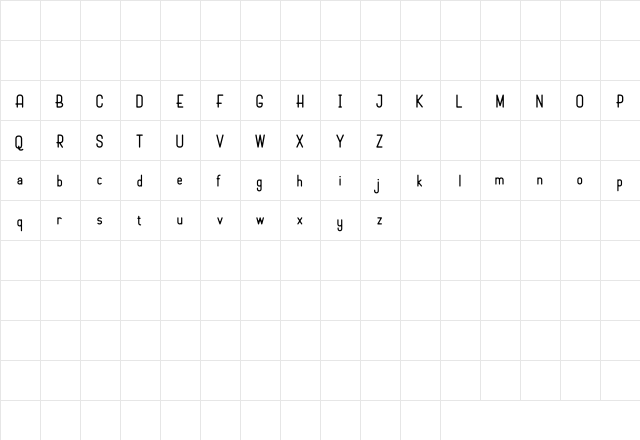
Marko Demo Regular
| Designer | Dicky Safaat Fuadi |
Design Context for Marko Demo Typeface
Marko Demo is a composed and adaptable typeface that performs quietly and consistently across a wide range of design contexts.